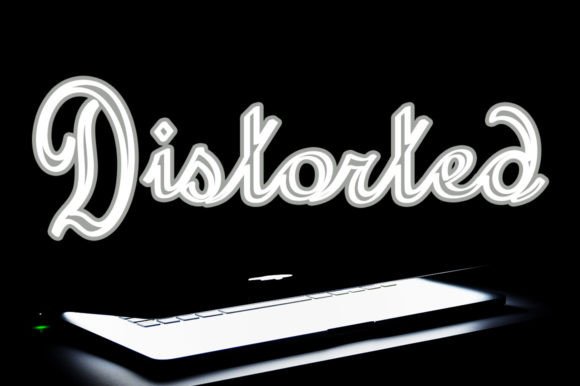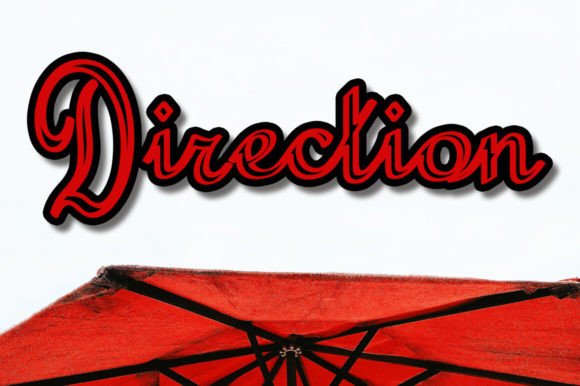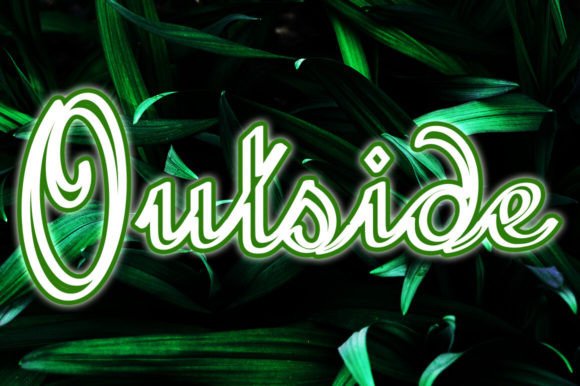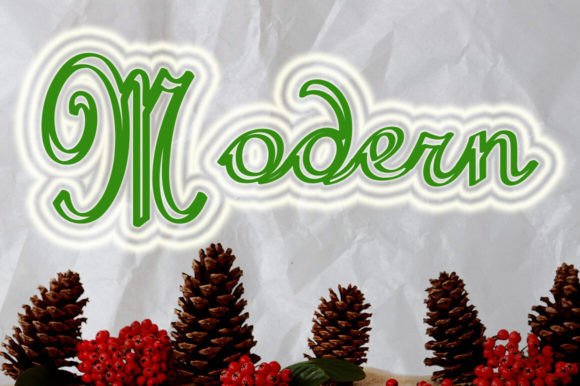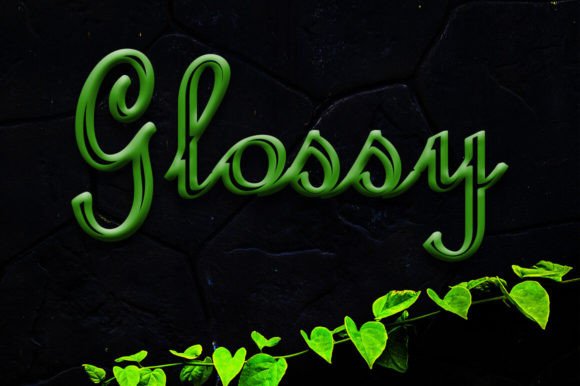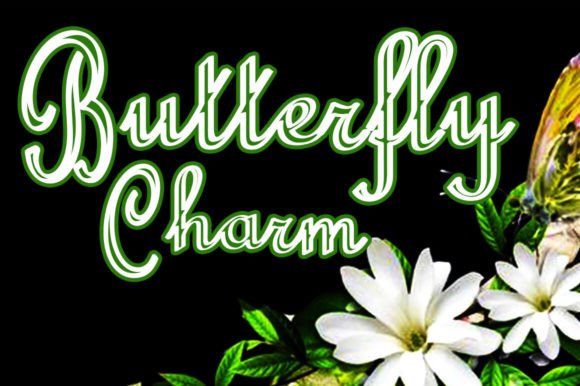
Introducing Enjoy Font: The Perfect Handwritten Touch for Your Creative Projects
Are you tired of using the same old fonts for your creative projects? Look no further than Enjoy Font, a beautiful handwritten font that’s perfect for adding a personal touch to your designs. Whether you’re a designer, crafter, or simply someone who loves to get creative, Enjoy Font is a versatile and stylish choice that’s sure to inspire.
The Inspiration Behind Enjoy Font
The designer of Enjoy Font found inspiration for its design from the world around them. By observing the unique characteristics of handwritten script, they aimed to create a font that’s both elegant and approachable. The result is a font that’s perfect for a wide range of creative projects, from wall displays and wedding invitations to social media posts and product packaging.
The Perfect Font for Creative Projects
Enjoy Font is perfect for anyone who wants to add a handwritten touch to their creative projects. Here are just a few examples of how you can use Enjoy Font:
- Wall Displays: Create beautiful wall displays with Enjoy Font, perfect for adding a personal touch to your home or office.
- Wedding Invitations: Make your wedding invitations truly special with Enjoy Font, a beautiful and elegant choice that’s sure to impress.
- Social Media Posts: Add a personal touch to your social media posts with Enjoy Font, perfect for creating eye-catching graphics and quotes.
- Logos: Use Enjoy Font to create a unique and memorable logo for your business or brand.
- Advertisements: Add a touch of elegance to your advertisements with Enjoy Font, perfect for creating eye-catching print ads or digital banners.
- Product Packaging: Make your product packaging truly special with Enjoy Font, a beautiful and stylish choice that’s sure to stand out.
- Labels: Use Enjoy Font to create beautiful labels for your products or gifts.
- Photography Watermarks: Add a personal touch to your photography with Enjoy Font, perfect for creating elegant watermarks.
- Invitations: Create beautiful invitations for any occasion with Enjoy Font, a versatile and stylish choice.
- Stationery: Use Enjoy Font to create beautiful stationery, perfect for adding a personal touch to your letters and notes.
Why Choose Enjoy Font?
There are many reasons why Enjoy Font is the perfect choice for your creative projects. Here are just a few:
- Unique and Handwritten: Enjoy Font is a unique and handwritten font that’s perfect for adding a personal touch to your designs.
- Versatile: Enjoy Font is a versatile font that’s perfect for a wide range of creative projects.
- Elegant and Approachable: Enjoy Font is both elegant and approachable, making it perfect for creating designs that are both stylish and accessible.
- Inspirational: Enjoy Font is an inspirational font that’s sure to spark your creativity and inspire your designs.
Get Creative with Enjoy Font
Whether you’re a designer, crafter, or simply someone who loves to get creative, Enjoy Font is the perfect choice for your next project. With its versatility, elegance, and approachability, Enjoy Font is sure to become your go-to font for all your creative needs.